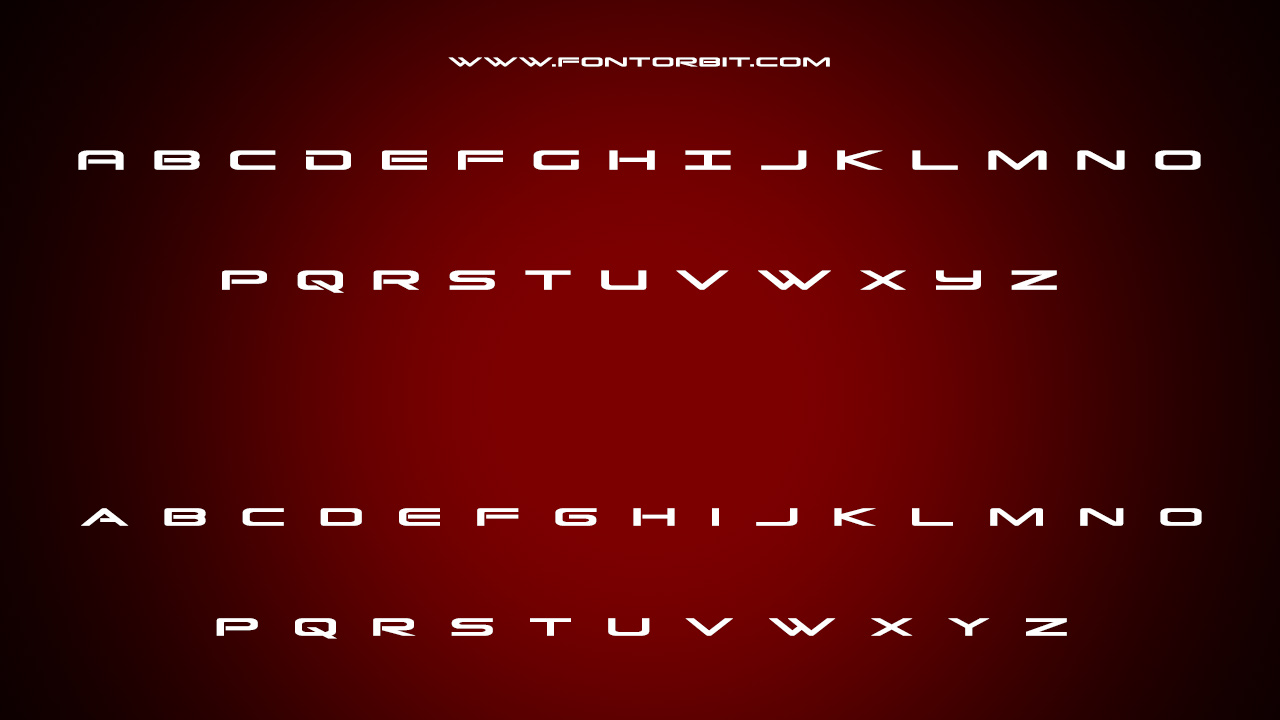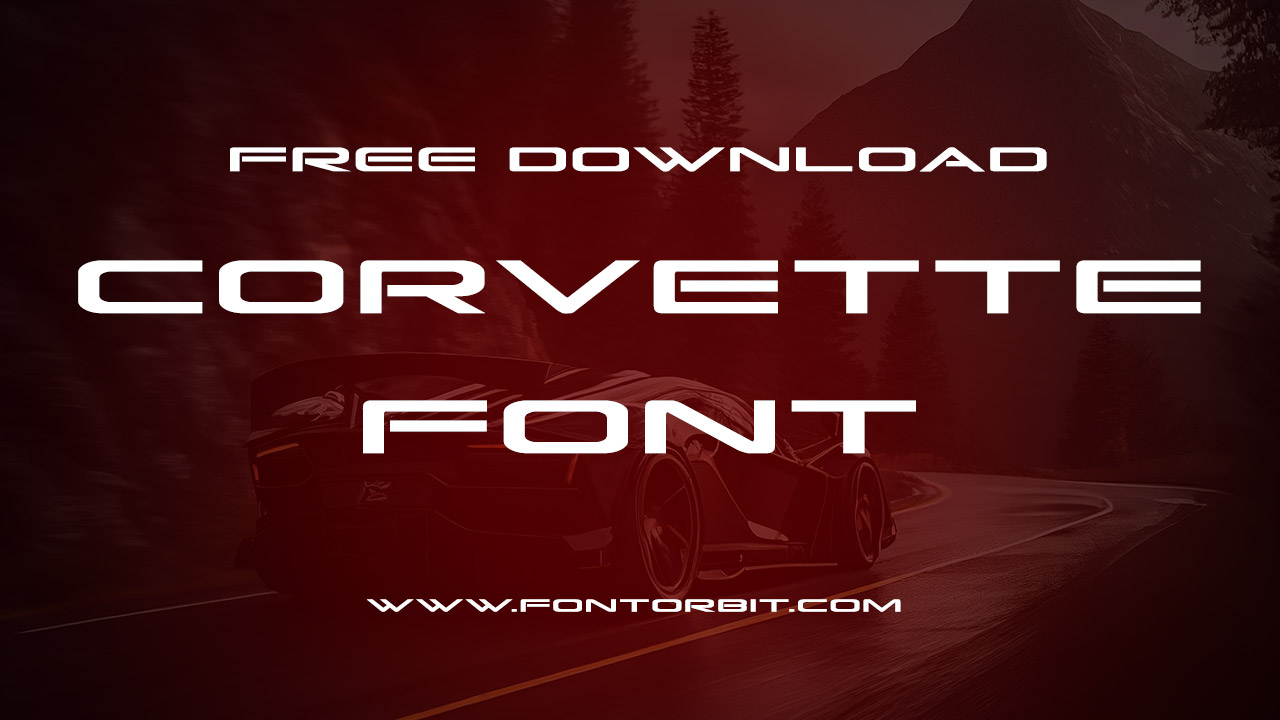
The Corvette Font captures the essence of the iconic Chevrolet Corvette brand. Designed by Daniel Zadorozny and published by Iconian Fonts, this typeface is a key element in branding the Corvette’s high-performance image.
The Corvette logo font is actually the Grand Sport font. It’s a must-have for automotive enthusiasts and designers looking to infuse a touch of sophistication and speed into their projects.
Corvette Font Family Includes
- Grand Sport
- Grand Sport 3D
- Grand Sport Condensed
- Grand Sport Condensed Italic
- Grand Sport Expanded
- Grand Sport Expanded Italic
- Grand Sport Italic
- Grand Sport Gradient
- Grand Sport Gradient Italic
- Grand Sport Half
- Grand Sport Half Italic
- Grand Sport 3D Italic
- Grand Sport Italic
- Grand Sport Laser
- Grand Sport Laser Italic
- Grand Sport Left
- Grand Sport Semi Italic
- Grand Sport Light Italic
- Grand Sport Title
- Grand Sport Title Italic
- Grand Sport Slight Italic
The Corvette Font Found In Use
The Corvette Font, particularly the Grand Sport variant, is perfect for various design projects. It brings a high-tech, futuristic edge to automotive-related graphics. This font enhances the visual impact of any project. Use it to evoke the cutting-edge performance and elegance associated with the Corvette brand in:
- Automotive Branding
- High-tech design projects
- Promotional materials
- Event posters
- Social media graphics
The Corvette Font, designed by Daniel Zadorozny and available through Iconian Fonts, provides a sleek and dynamic typeface that reflects the high-performance and modern aesthetic of the Chevrolet Corvette. The latest version includes updated kerning and expanded character support.
1.What Are The Key Elements That Make The Corvette Font Stand Out?
Sleek, modern design with sharp lines and dynamic shapes that reflect high performance and technological sophistication.
2.What Are The Different Weights And Styles Available In The Corvette Font Family?
The Grand Sport Font includes 19 weights and styles, such as Light Italic, Semi Italic, and Expand.
4.What Are The Key Considerations When Pairing The Corvette Font With Other Typefaces?
Balance its sleek, modern style with clean, simple fonts like Helvetica or Futura to avoid overwhelming visuals.
5.What Are The Different Moods Or Emotions That The Corvette Font Conveys?
Conveys sophistication, speed, and cutting-edge technology, enhancing a sense of high performance and modern elegance.
6.What Type Of Font Is Corvette Font?
It is a modern, high-tech display typeface designed to reflect the sophisticated and performance-oriented nature of the Chevrolet Corvette.